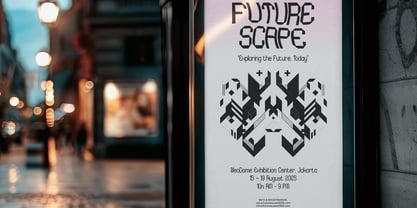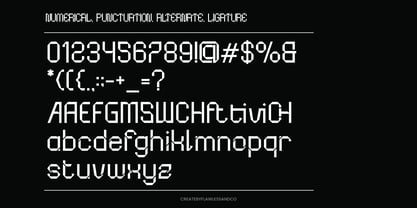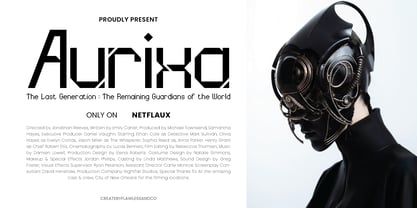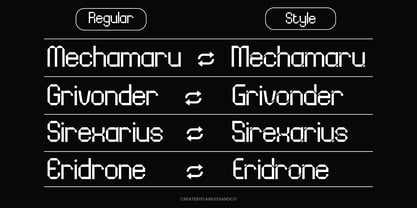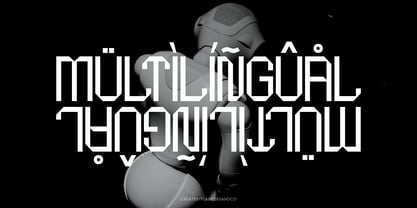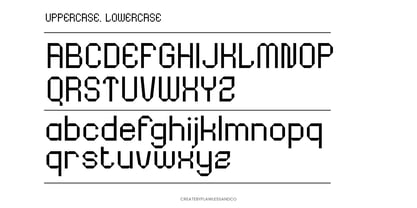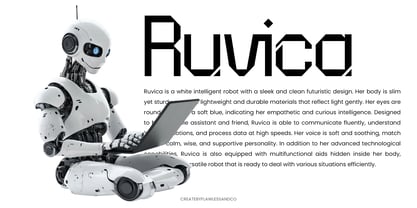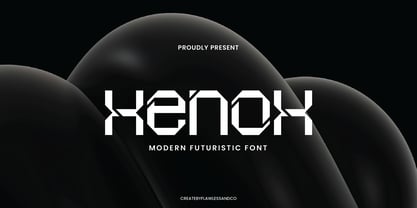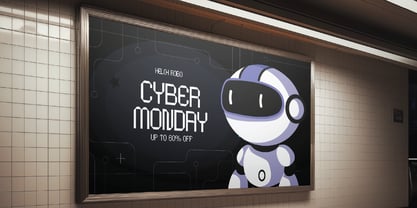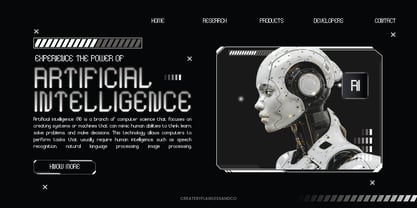
Xenox
Xenox is a modern futuristic font that blends minimalism with high-tech precision. Designed with clean geometry and contemporary structure, Xenox offers a sleek, refined look perfect for forward-thinking branding and digital innovation. With its sharp lines, smooth curves, and balanced proportions, Xenox brings a futuristic tone without feeling overly stylized—making it ideal for technology brands, modern interfaces, digital ads, and lifestyle products that embrace the future. Xenox stands at the intersection of elegance and technology, giving your typography a confident and sophisticated edge.
Features :
Multilingual, Uppercase alphabet A-Z, Lowercase alphabet a-z, Numbers 0-9, Some punctuation, Alternates & Ligatures